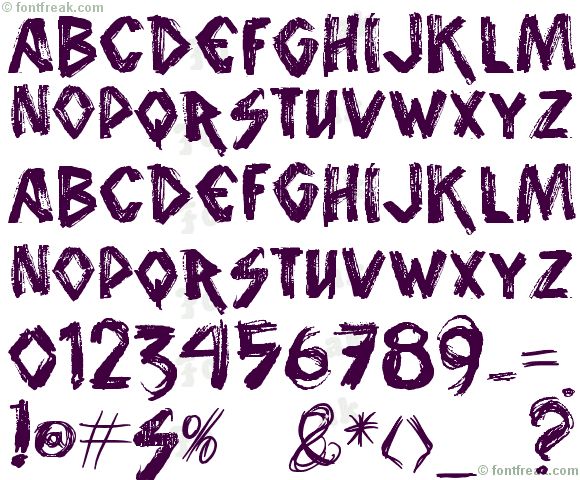
vtks animal 2
The vtks animal 2 font, designed by Douglas Vitkauskas, is a distinctive display typeface that captures an adventurous and playful spirit. This font showcases a unique handwritten style, characterized by its rough, textured strokes that evoke a sense of spontaneity and creativity. With a medium stroke weight and minimal contrast, the letters appear bold and eye-catching, making them suitable for various applications. The spacing between characters is relatively tight, allowing for a cohesive appearance while maintaining readability.
This font is ideal for a variety of creative projects. It works wonderfully for children's book covers, where its playful nature can engage young readers. Additionally, vtks animal 2 is perfect for promotional materials for zoos or wildlife parks, as it reflects the essence of nature and animals. Graphic designers can also utilize this font for vibrant restaurant menus that aim to convey a fun and inviting atmosphere. Furthermore, it can be an excellent choice for event flyers or posters, especially those geared toward family-friendly activities.
The target audience for the vtks animal 2 font includes graphic designers looking to add a whimsical touch to their projects, small business owners aiming to create memorable branding, and content creators seeking a distinctive font to enhance their visual storytelling.
What sets the vtks animal 2 font apart is its ability to convey personality and energy through its unique design. As a freeware option, it offers an accessible way for creators to infuse their work with character and charm. For anyone looking to add a playful flair to their designs, the vtks animal 2 font free download is an excellent choice that will undoubtedly leave a lasting impression.